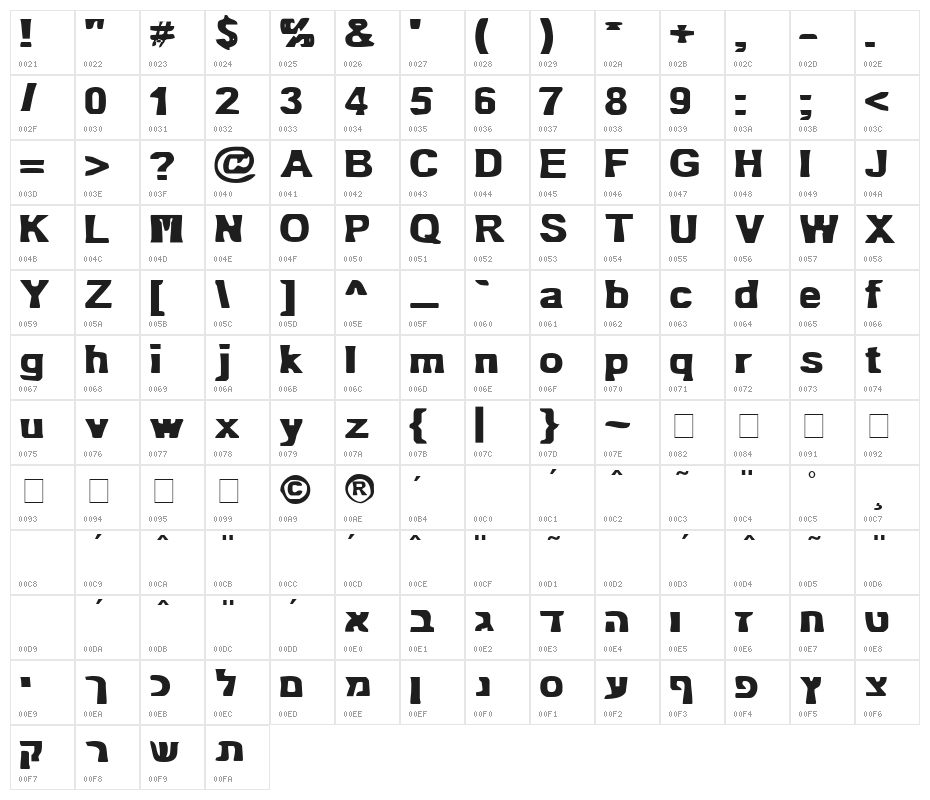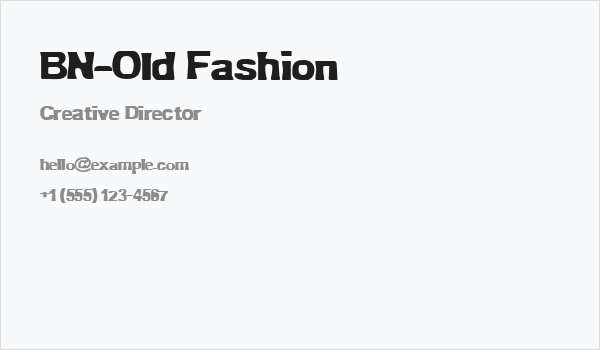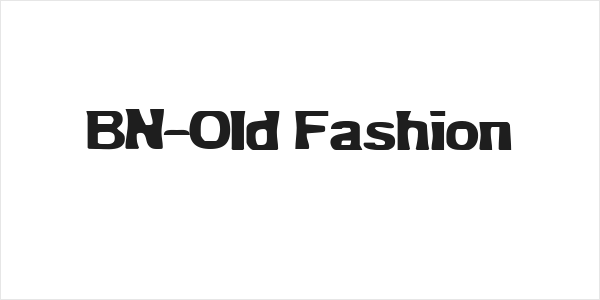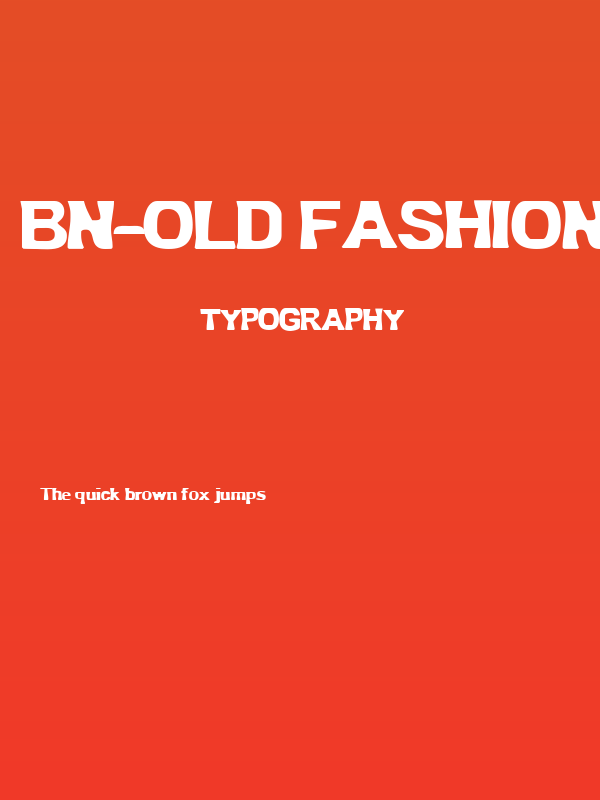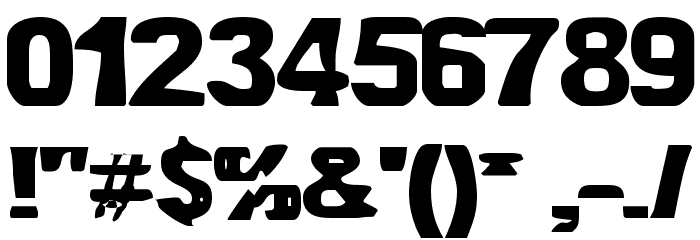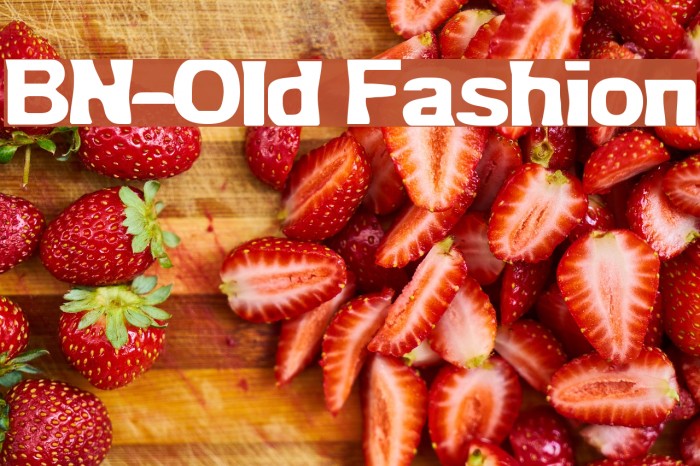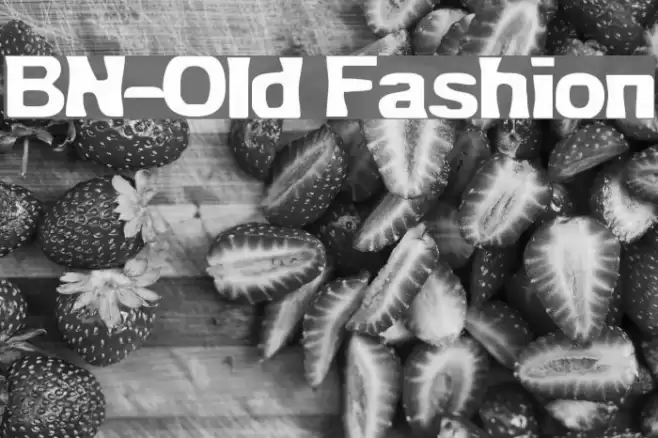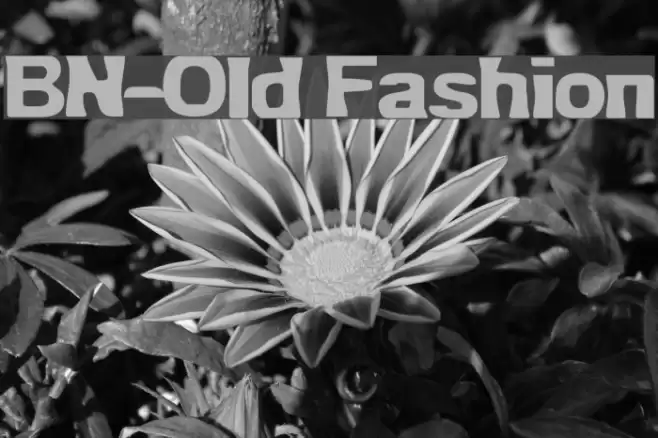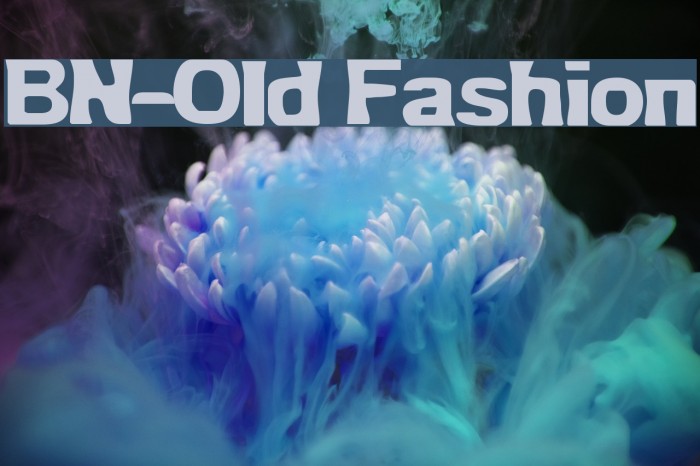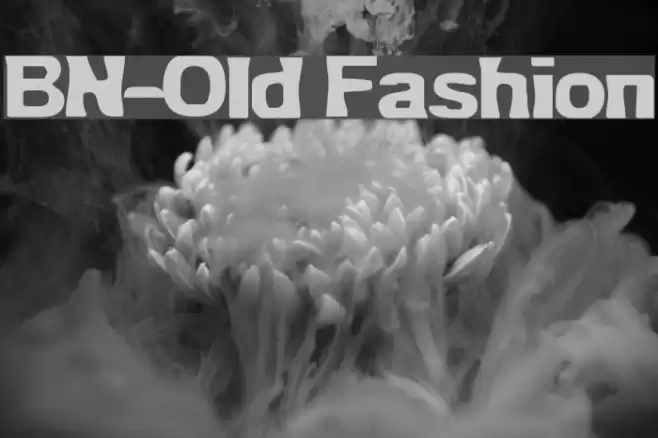
BN-Old Fashion Font
BN-Old Fashion Description
This font features a bold and striking design with a distinctly vintage flair. The characters are robust and have a slightly condensed appearance, giving them a strong presence on the page. The uppercase letters are particularly pronounced, with thick strokes and angular edges that evoke a sense of old-world charm. The lowercase letters maintain this boldness while offering a slightly more playful and rounded aesthetic. Numbers and special characters follow the same stylistic cues, ensuring consistency across all text elements. The font's unique style makes it ideal for projects that require a touch of nostalgia or a bold statement.
| Width | Condensed |
| Overall Style | Vintage |
| Proposed Projects | Ideal for vintage-themed posters, retro branding, and eye-catching headlines. |